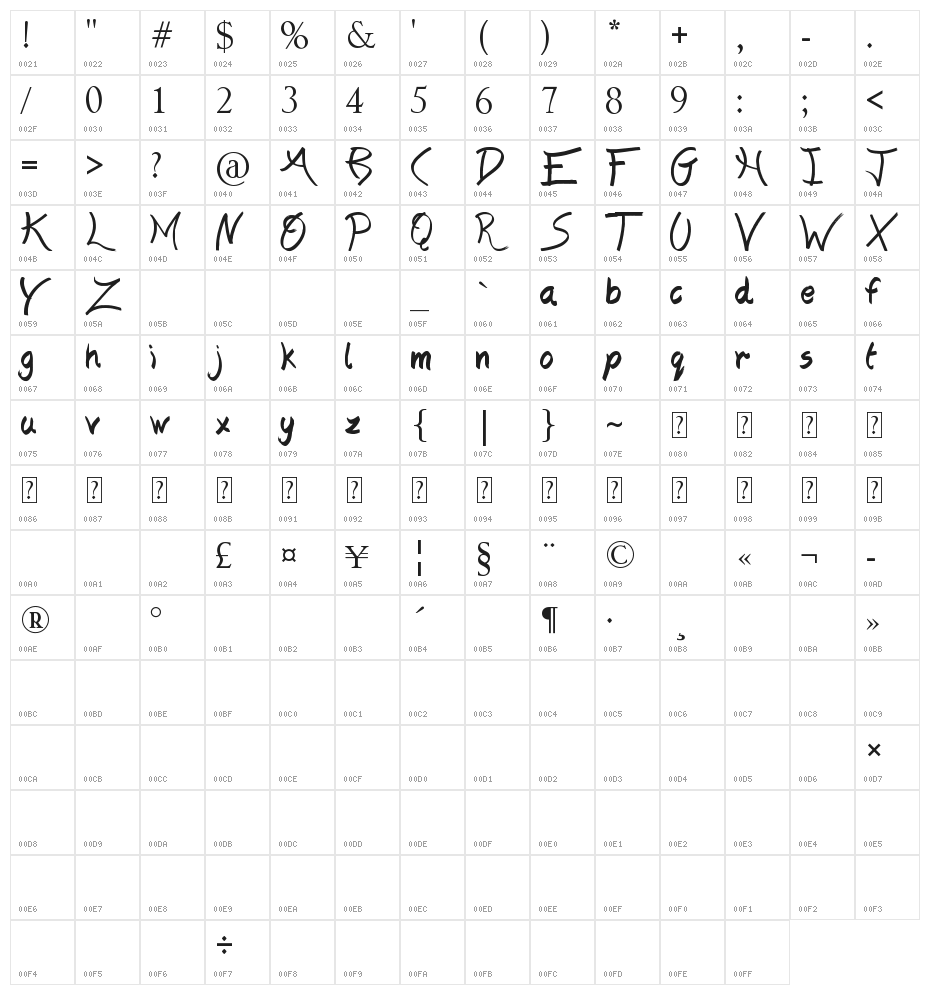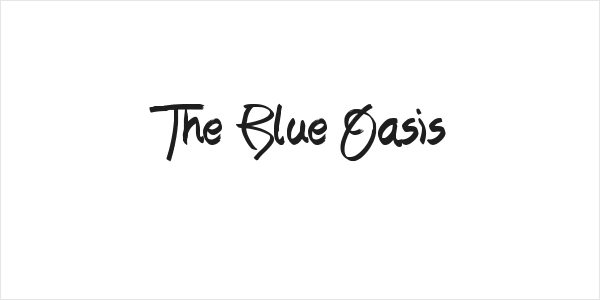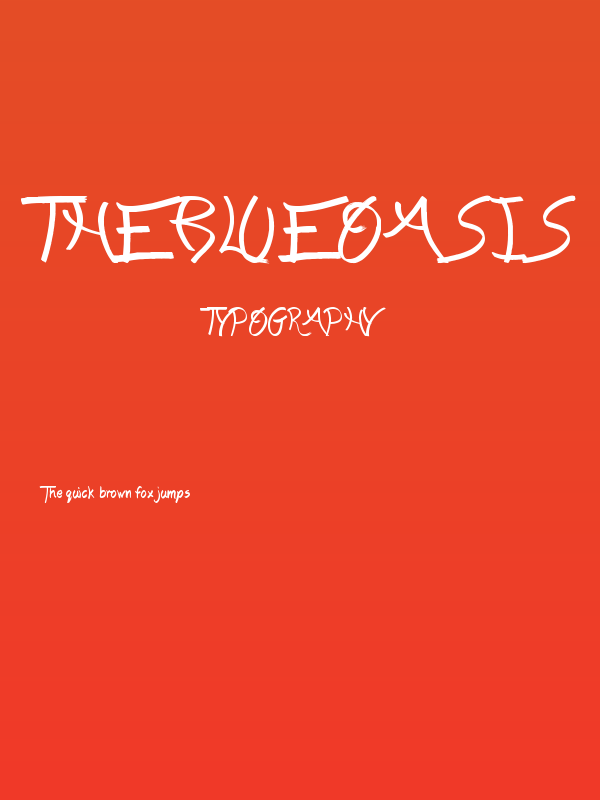
The Blue Oasis Font
The Blue Oasis Description
This font features a dynamic and expressive style, characterized by its brush-like strokes and fluid motion. The uppercase letters exhibit a playful and artistic flair, with varying line thickness that adds a sense of movement and energy. The lowercase letters maintain this lively aesthetic, offering a cohesive look throughout the typeface. Numbers and special characters are crafted with the same attention to detail, ensuring versatility across different uses. The overall design is bold and eye-catching, making it suitable for projects that require a strong visual impact.
| Proposed Projects | Ideal for branding, poster design, and creative projects that require a bold and artistic touch. |